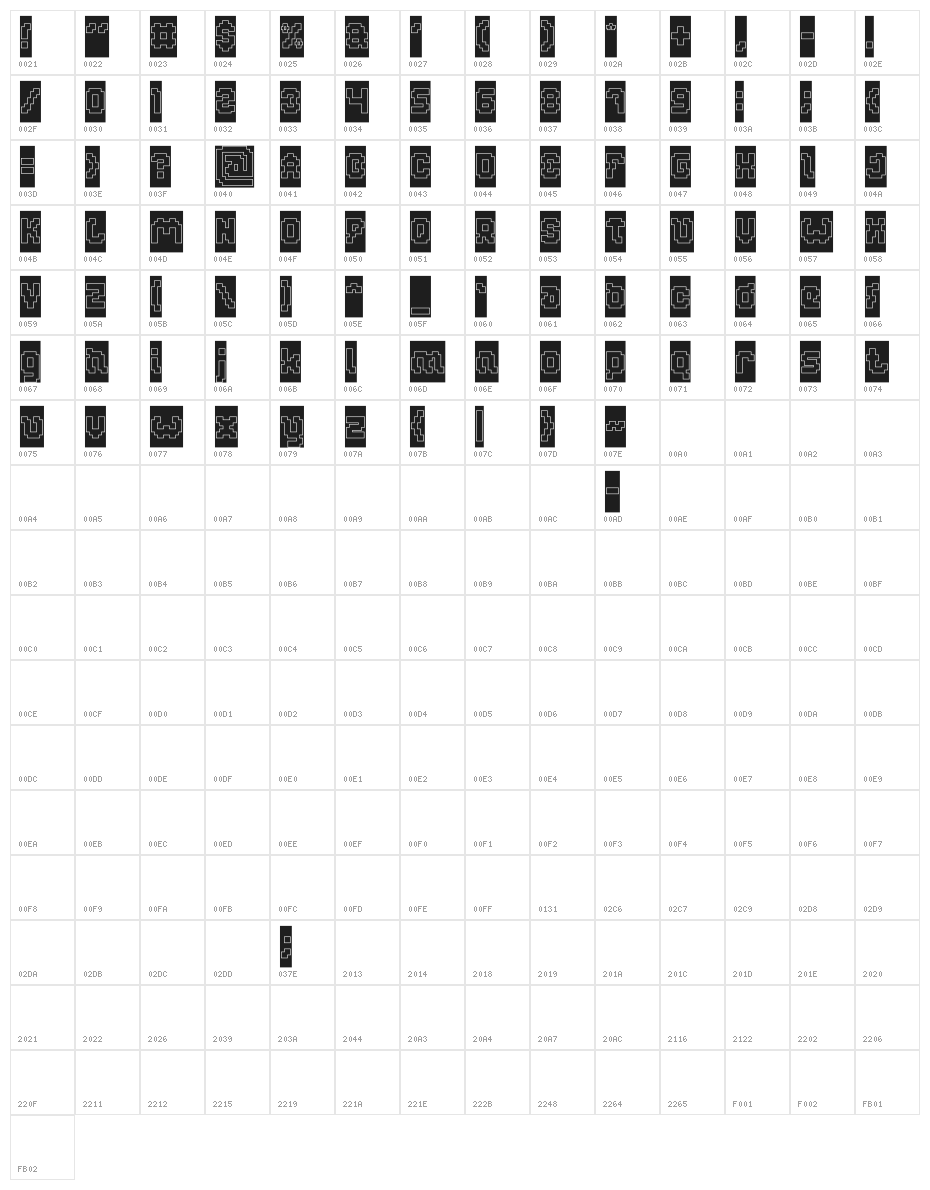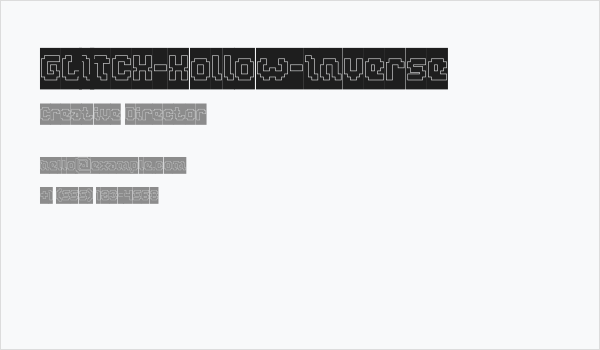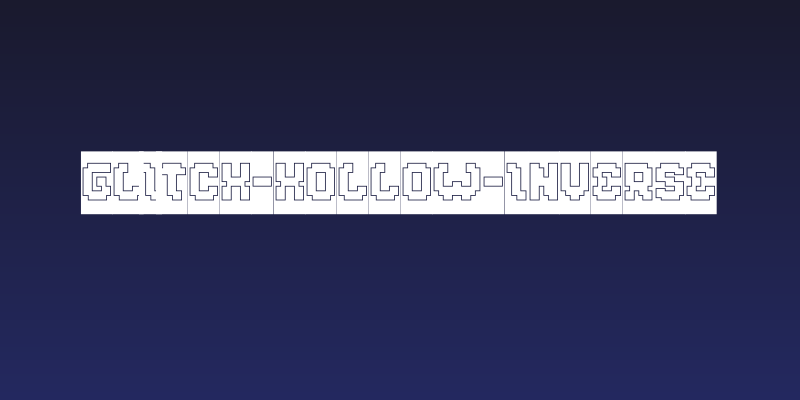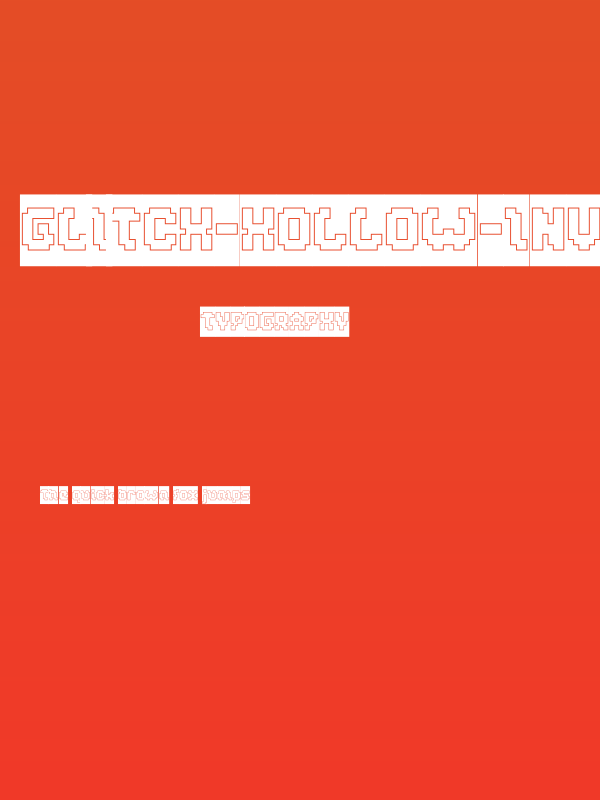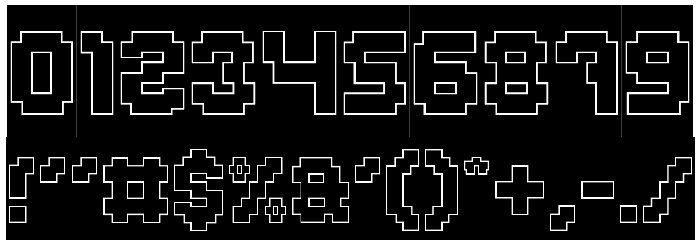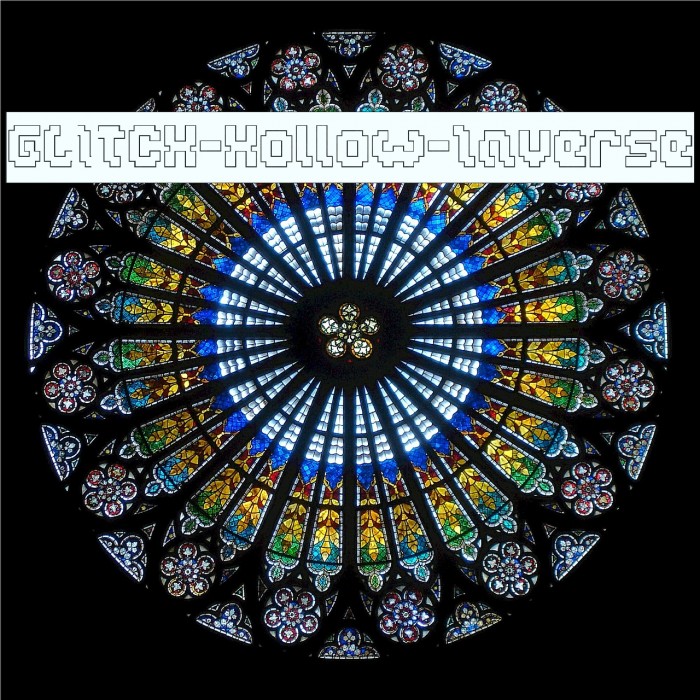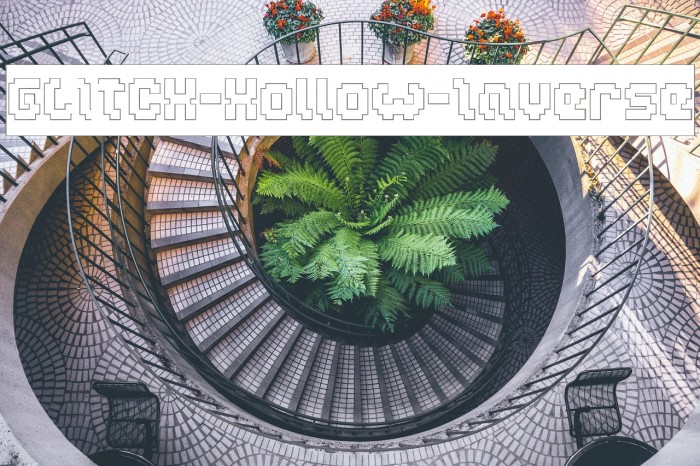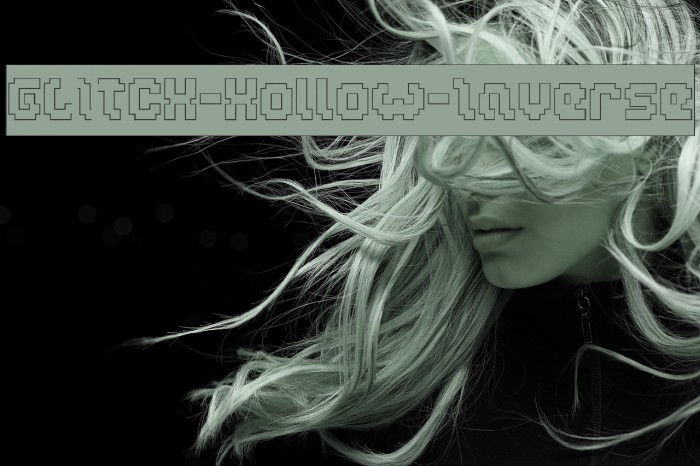
GLITCH-Hollow-Inverse Font
GLITCH-Hollow-Inverse Description
This font features a bold, hollow design with a digital, glitch-inspired aesthetic. The characters are outlined with a pixelated, jagged edge, giving it a distinctly modern and technological feel. The uppercase and lowercase letters maintain a consistent style, with the numbers and special characters following suit. The hollow nature of the font adds a unique dimension, making it stand out in any design. Its geometric and angular shapes are reminiscent of early digital graphics, perfect for projects that require a retro-futuristic or tech-savvy look.